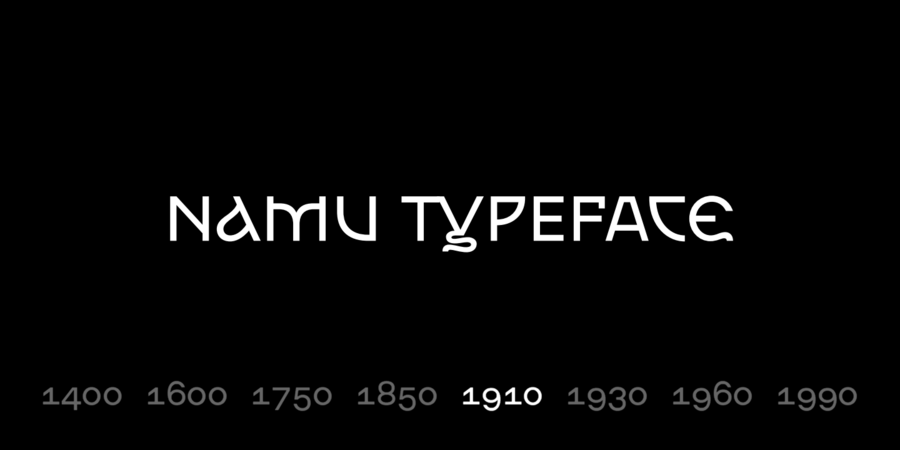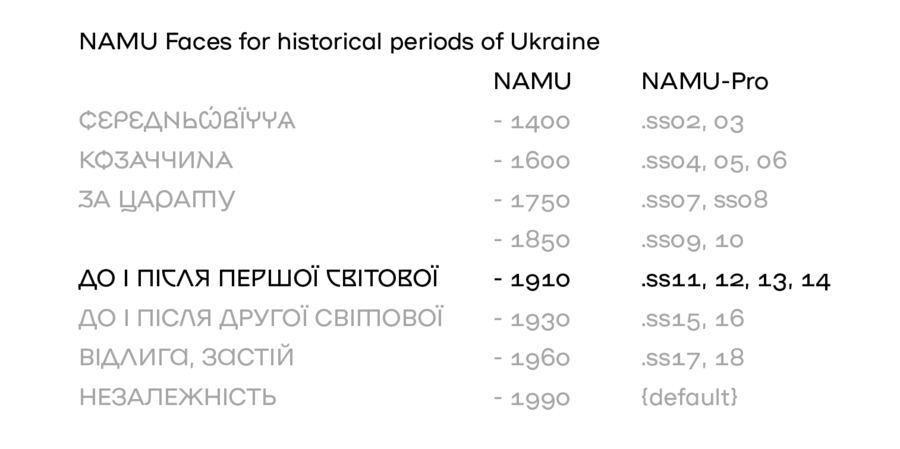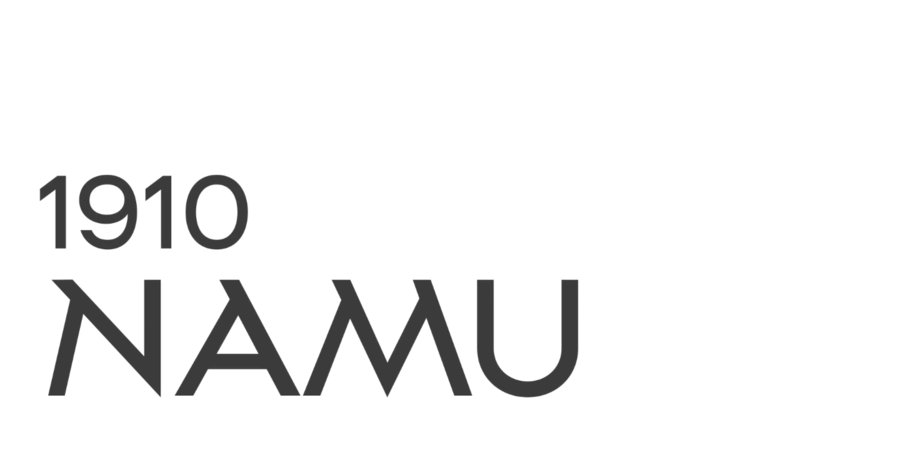
NAMU Art Nouveau is a font 1910 from free typeface for National Art Museum of Ukraine. NAMU is a geometric sans serif with a deep history and daring experiments. Red Dot winner 2019 at Corporate Design and Identity category. At the end of 2018, the National Art Museum of Ukraine and Banda agency presented a new identity. The NAMU typeface became the basis of the visual style. To create this basis, designer Dmytro Rastvortsev immersed himself in the research of the museum fund, archival documents and outlines of ancient letters. As a result, the final NAMU typeface has 20 stylistic sets in the NAMU Pro version and 9 separate font styles for each historical period. NAMU typeface is free for commercial and non-commercial use. But the font files must not be decompiled. License Creative Commons CC BY-ND 4.0. Created by Dmytro Rastvortsev in 2018-2022.
historical, dynamic, sharp, flat, original, heroic, picturesque, temperamental, ambitious, chopped, game, experimental, distinctive, unusual, high-quality, modern, fashionable, notable, daring, solid, self-assured, cutting, crisp, fresh, spectacular, cultural, interesting, strange, wooden, architectural, artistic, expressive, splashy, bright, theatrical, cinematic